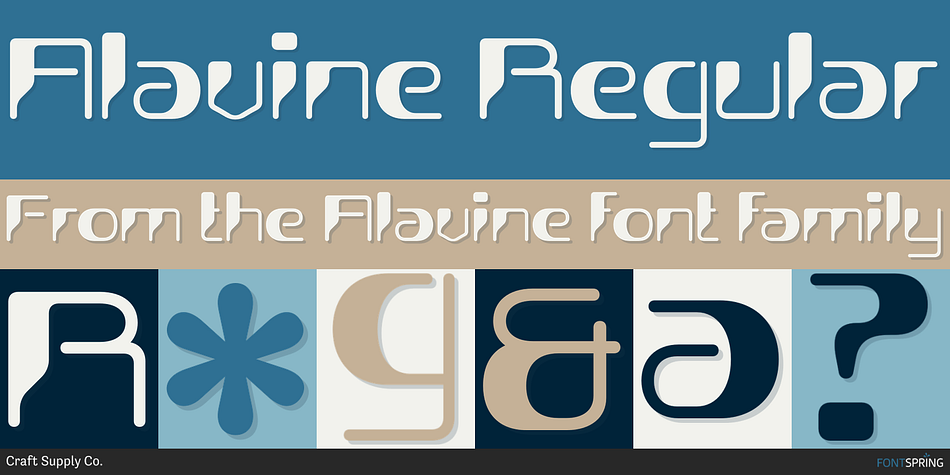
Alavine Regular
Alavine is a retro font family. This typeface has two styles and was published by Craft Supply Co.
Alavine: Futuristic Display Typeface
Inspired by Y2K Robots
Alavine draws inspiration from the futuristic aesthetics of Y2K-era robots, featuring sleek lines and geometric shapes reminiscent of advanced technology.
Sleek and Modern Design
With its sleek and modern design, This font exudes a sense of innovation and sophistication, making it perfect for contemporary display purposes.
Distinctive Features
This font stands out with its unique features, including sharp edges and futuristic curves, evoking the essence of cutting-edge technology and robotic precision.
Versatile Application
From tech-themed branding to futuristic poster designs, This font offers versatility in application, adding a touch of futuristic flair to any project.